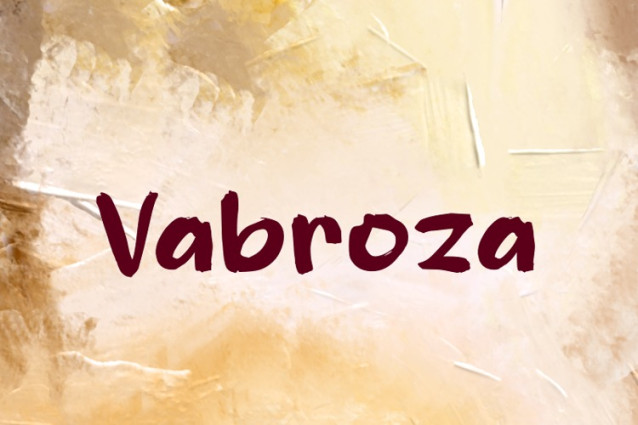
Vabroza Font
Vabroza Font, it would be a perfect choice to design posters, affiches, logos, t-shirt and magazine prints, eye-pleasing typographic designs and more.